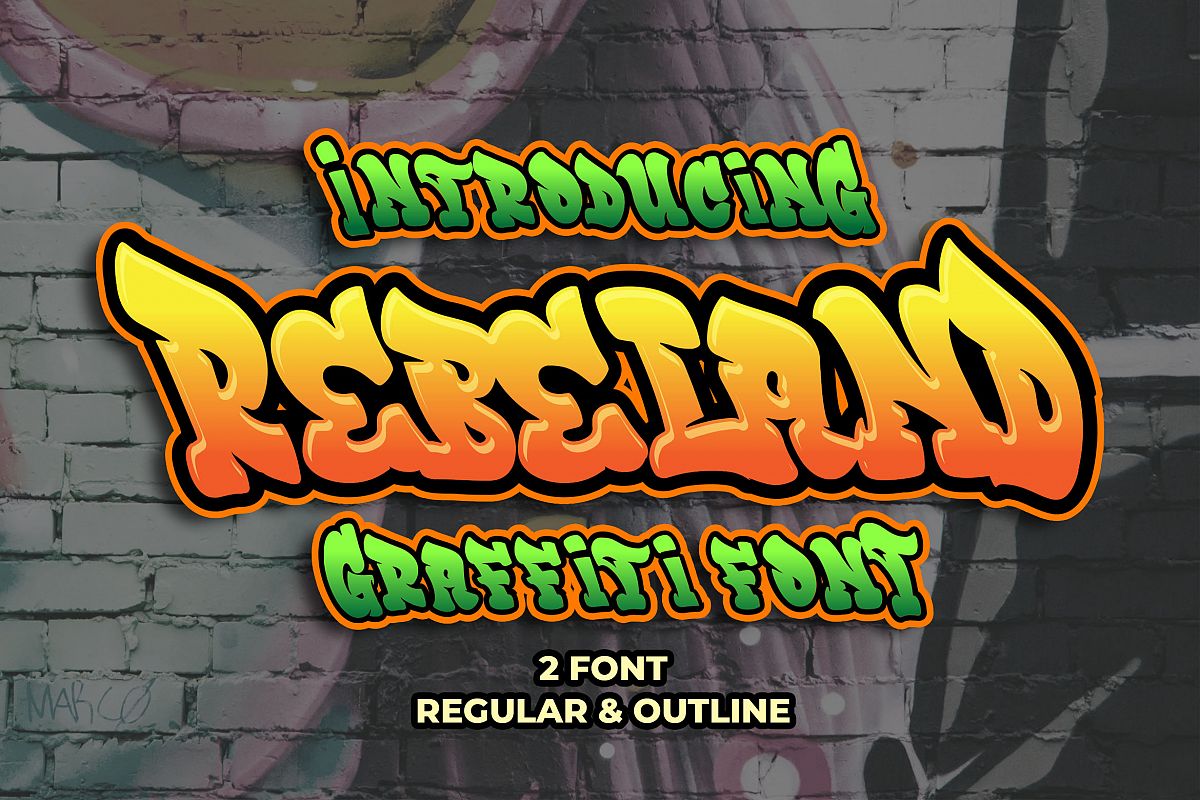
Introducing of our new product the name is Rebeland Graffiti Font. Rebeland inspired by graffiti style with a fun theme very good for graffity poster, Hip Hop music, kids poster, flyer, childrenbook, cartoon, comic etc